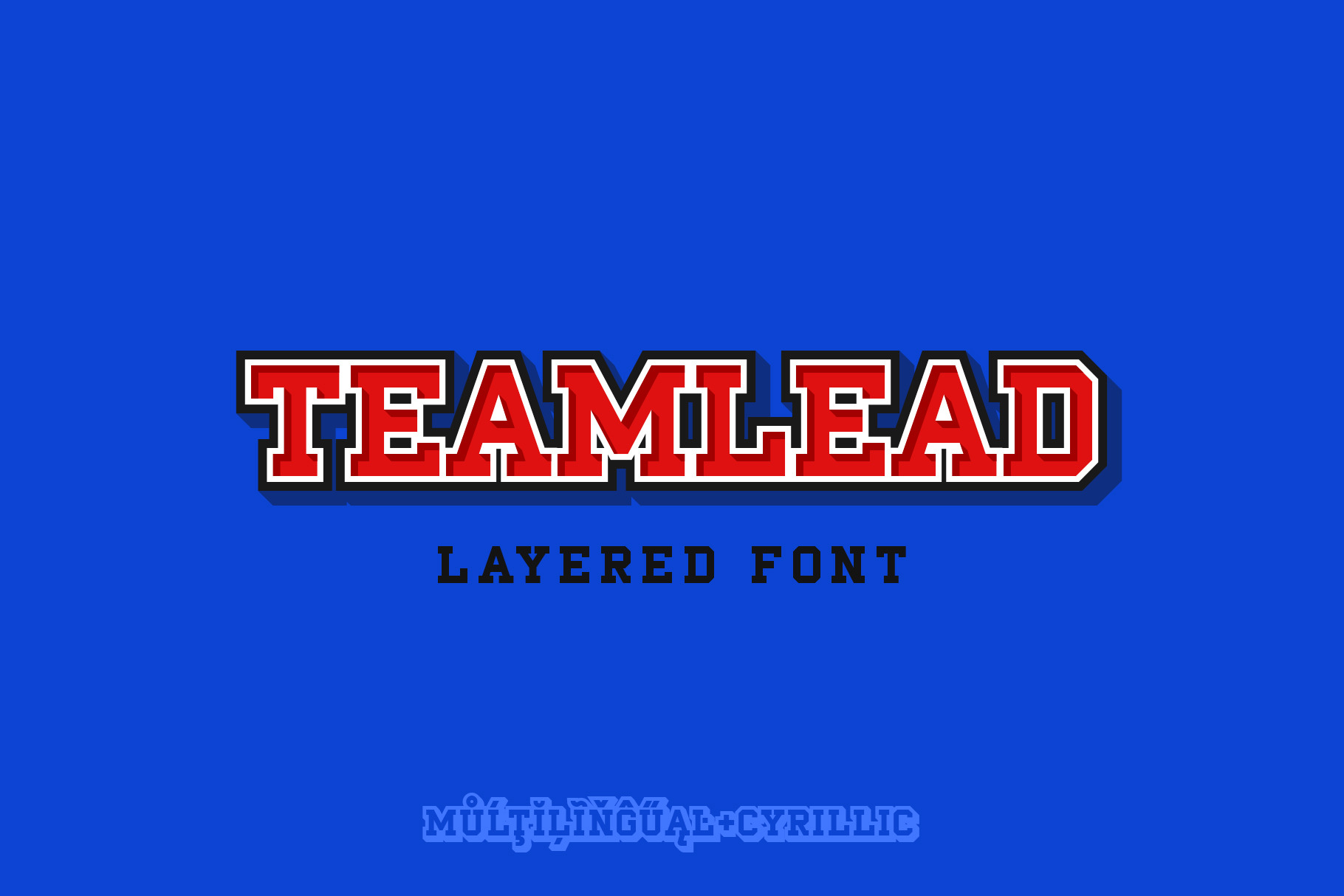
TeamLead Layered Font
TeamLead is an authentic sports branding font of Five Layers (please see the preview image #3). It is perfect for sports logos, posters, apparel design, labels and much more.
Multilingual support (LatinPro & Slavian Cyrillic).